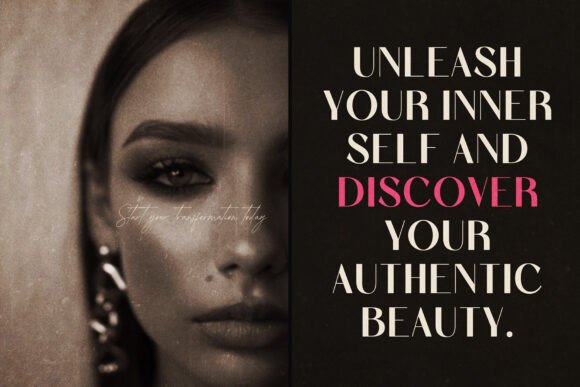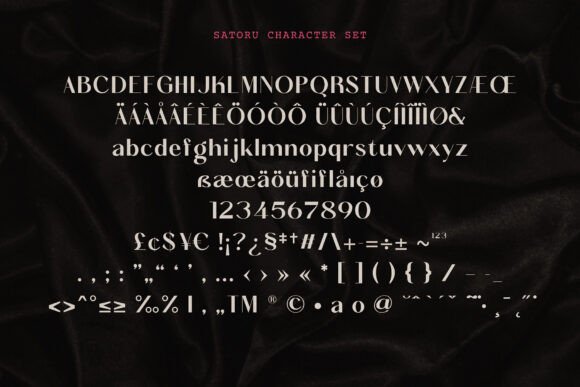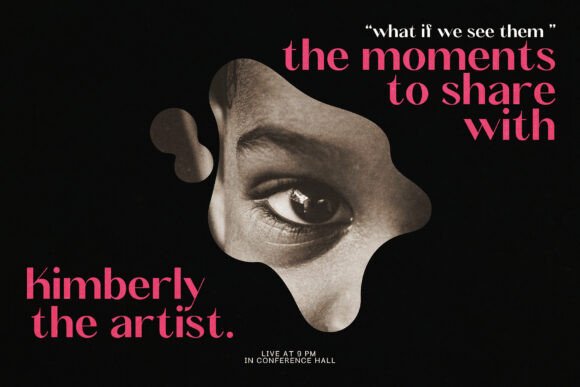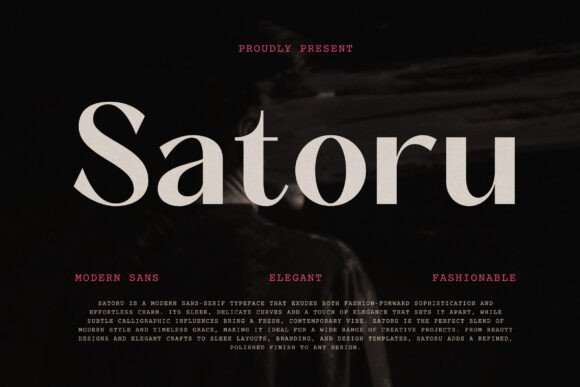
Introducing Satoru Modern & Elegant San Serif Font.
Satoru is a modern and classy typeface, best used as a display for headings, logos, branding, magazines, product packaging, and invitations Satoru comes with clean lines and smooth curves giving any project an extra touch of class.